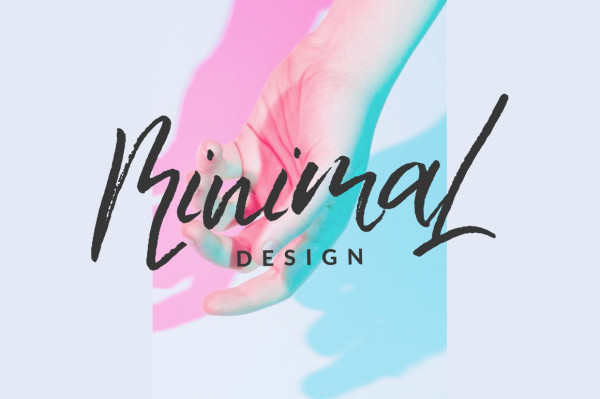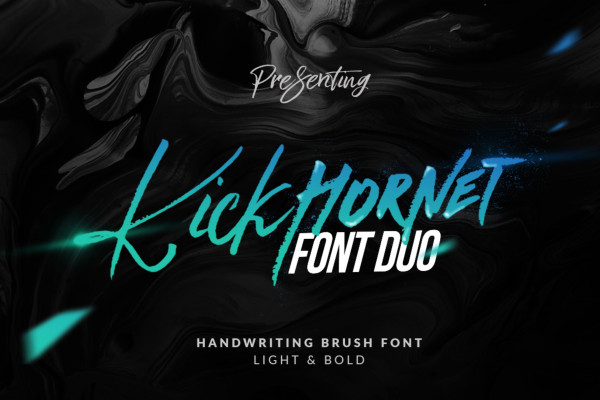
Kick Hornet Font
Kick Hornet Font, is a friendly, brush stroke font that looks at home in a wide range of designs! This font is a dry brush stroke script, and can give your designs an elegant yet completely modern look.